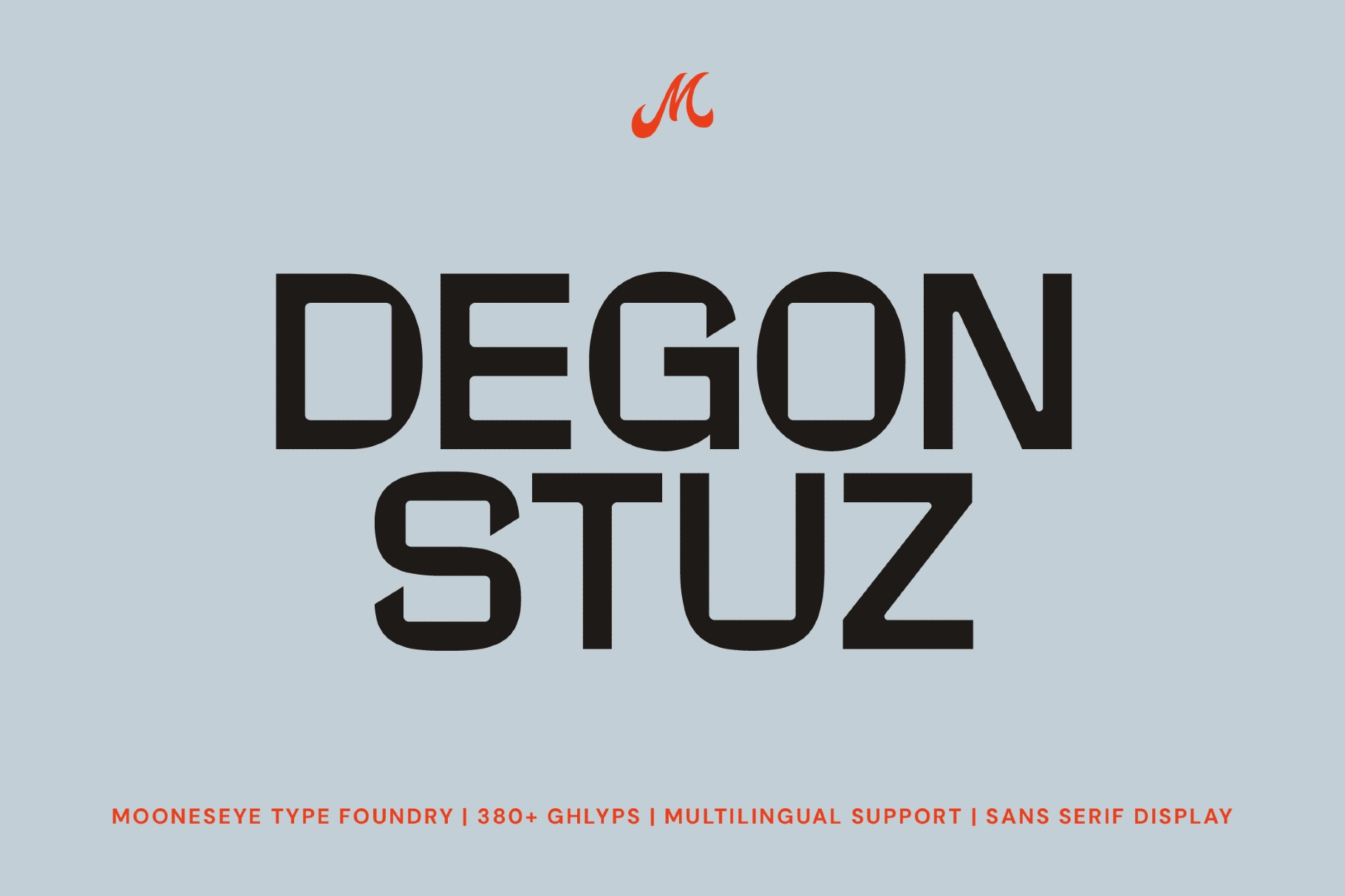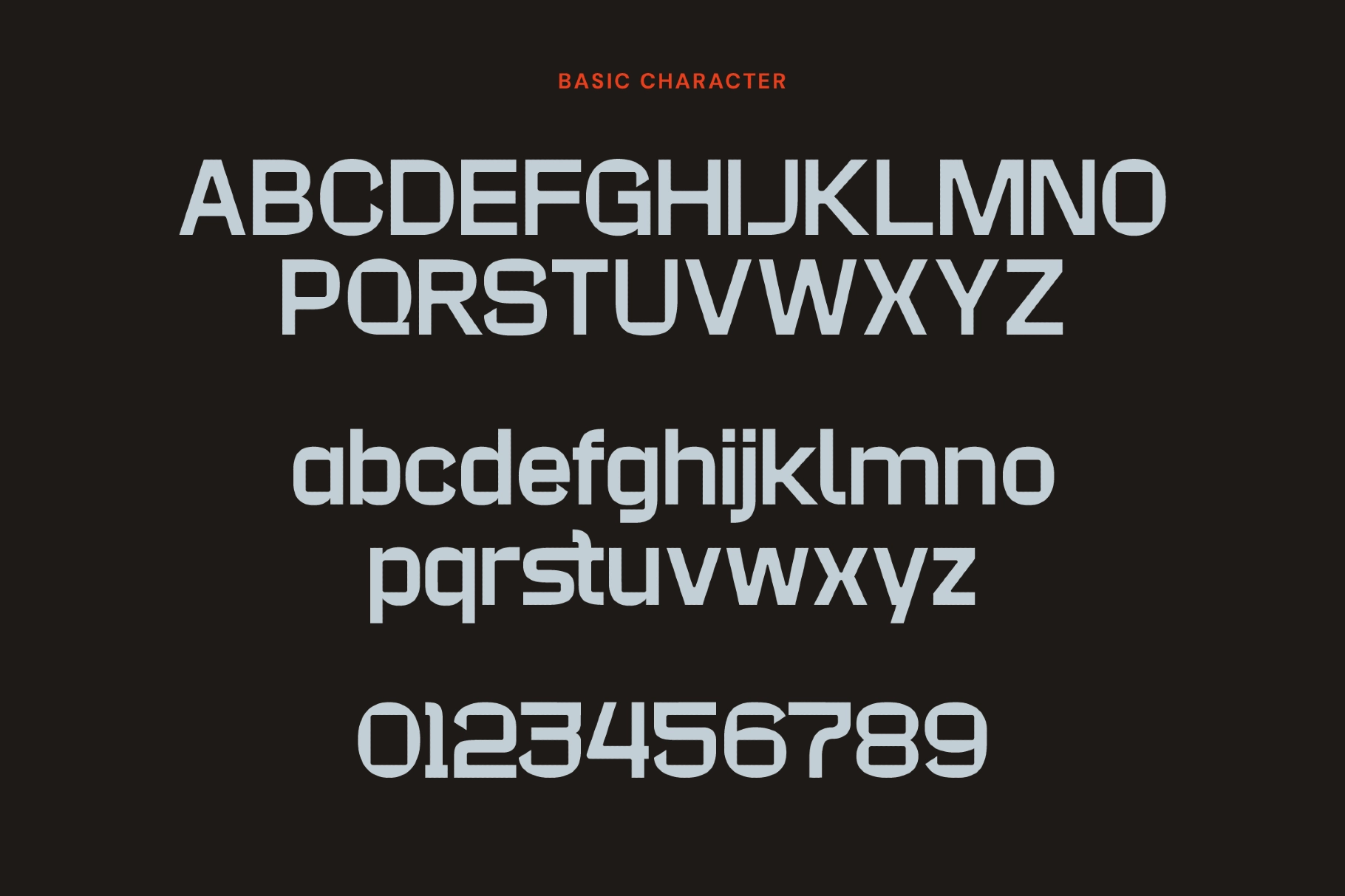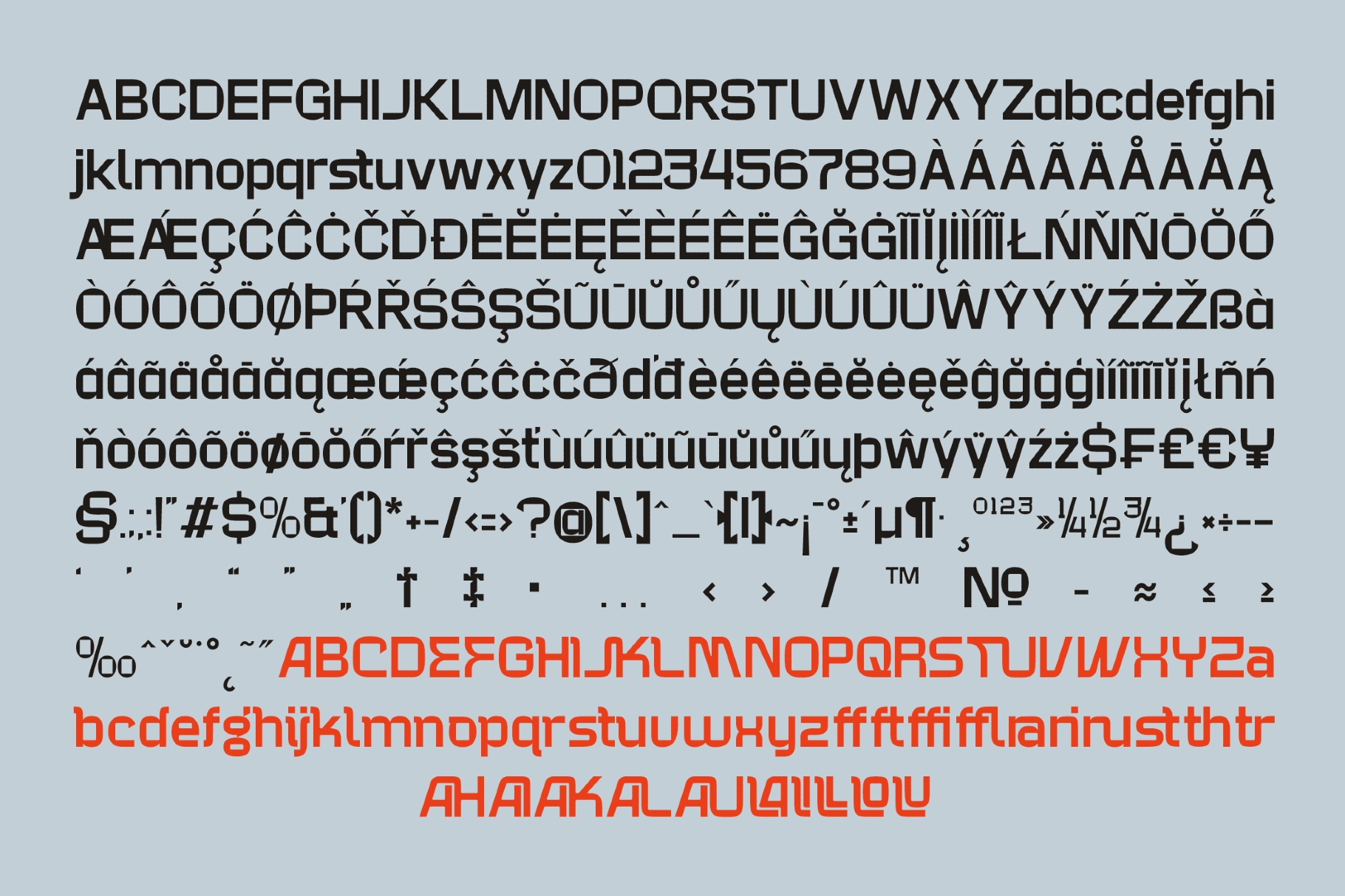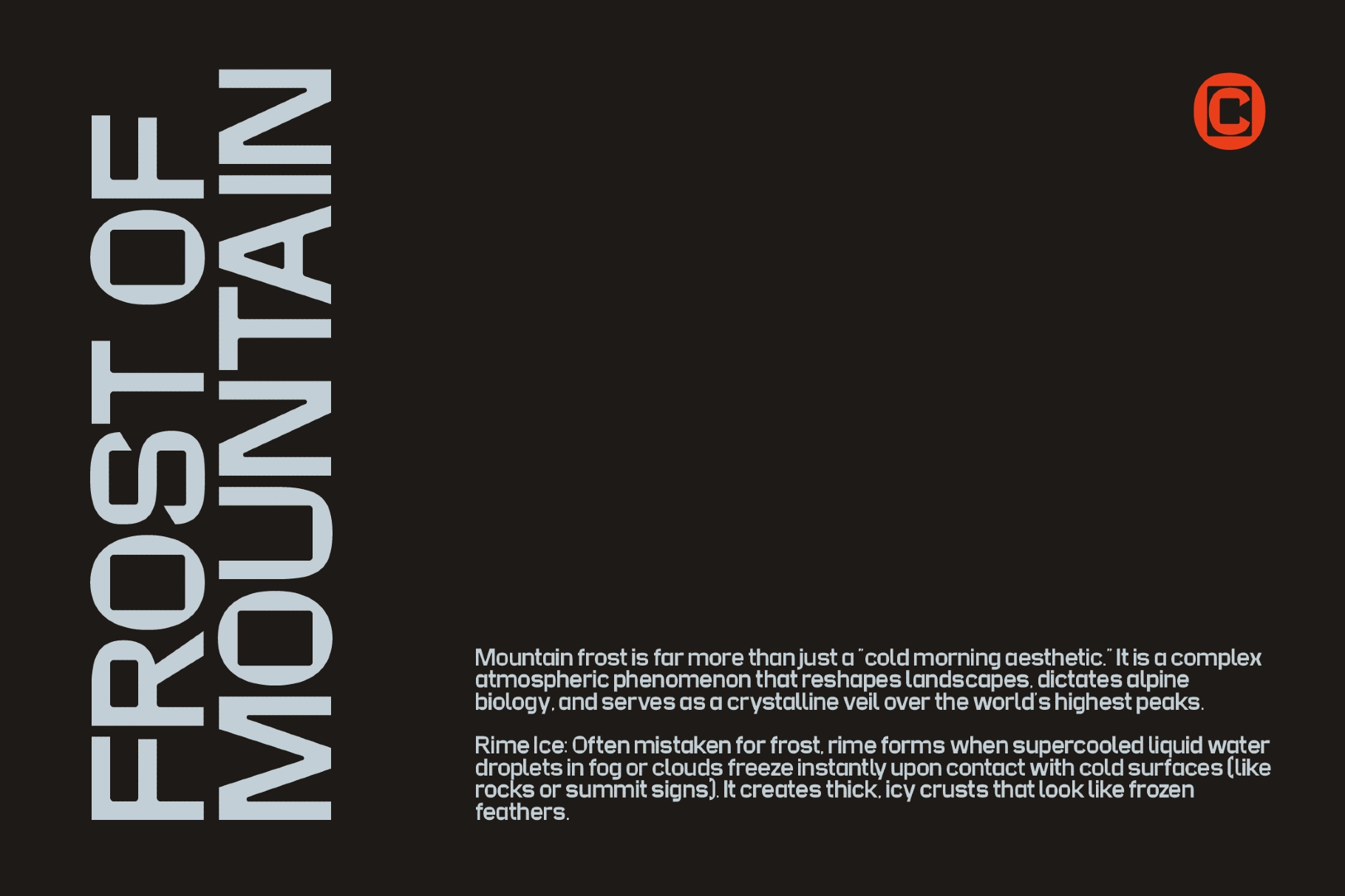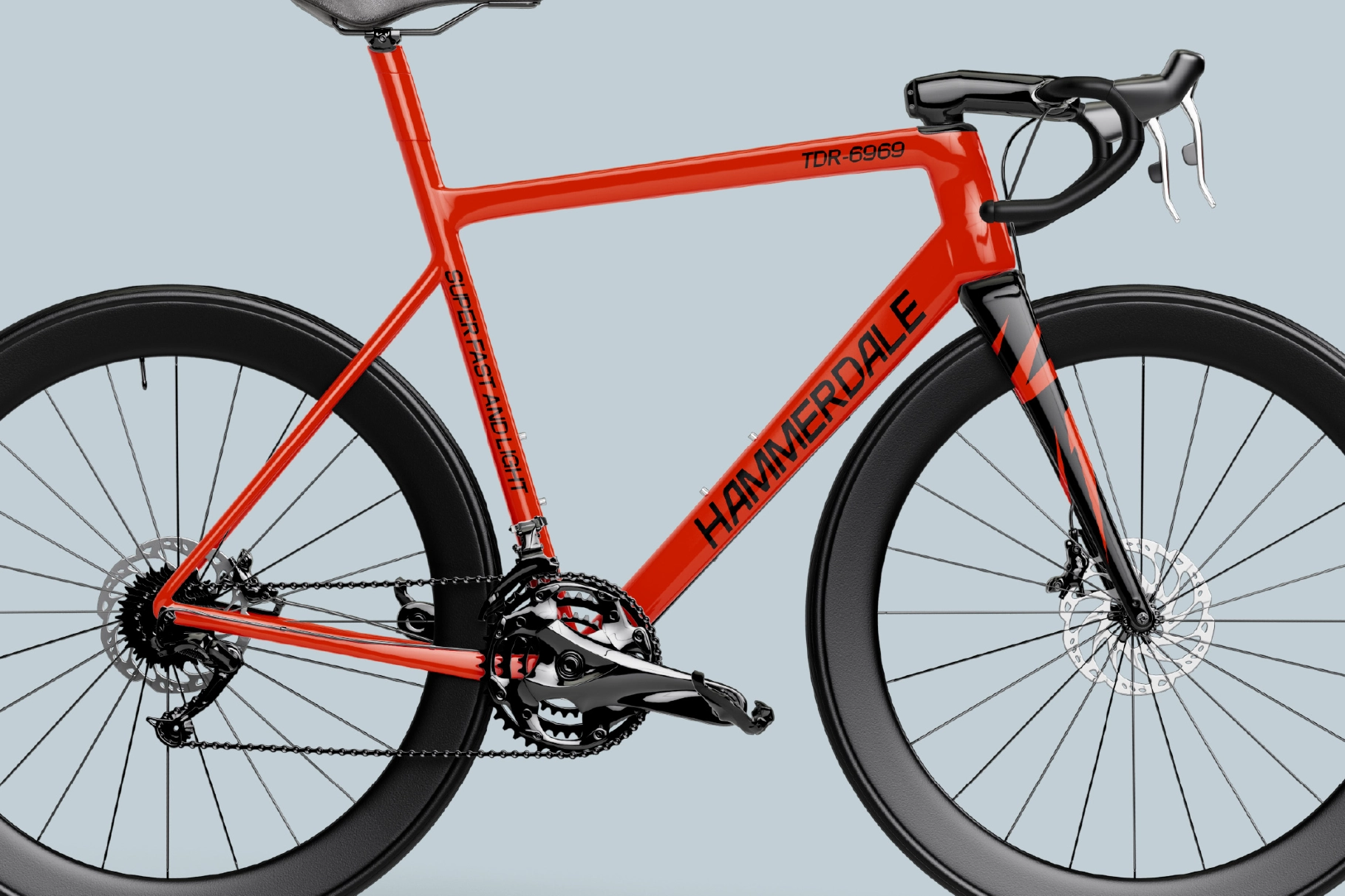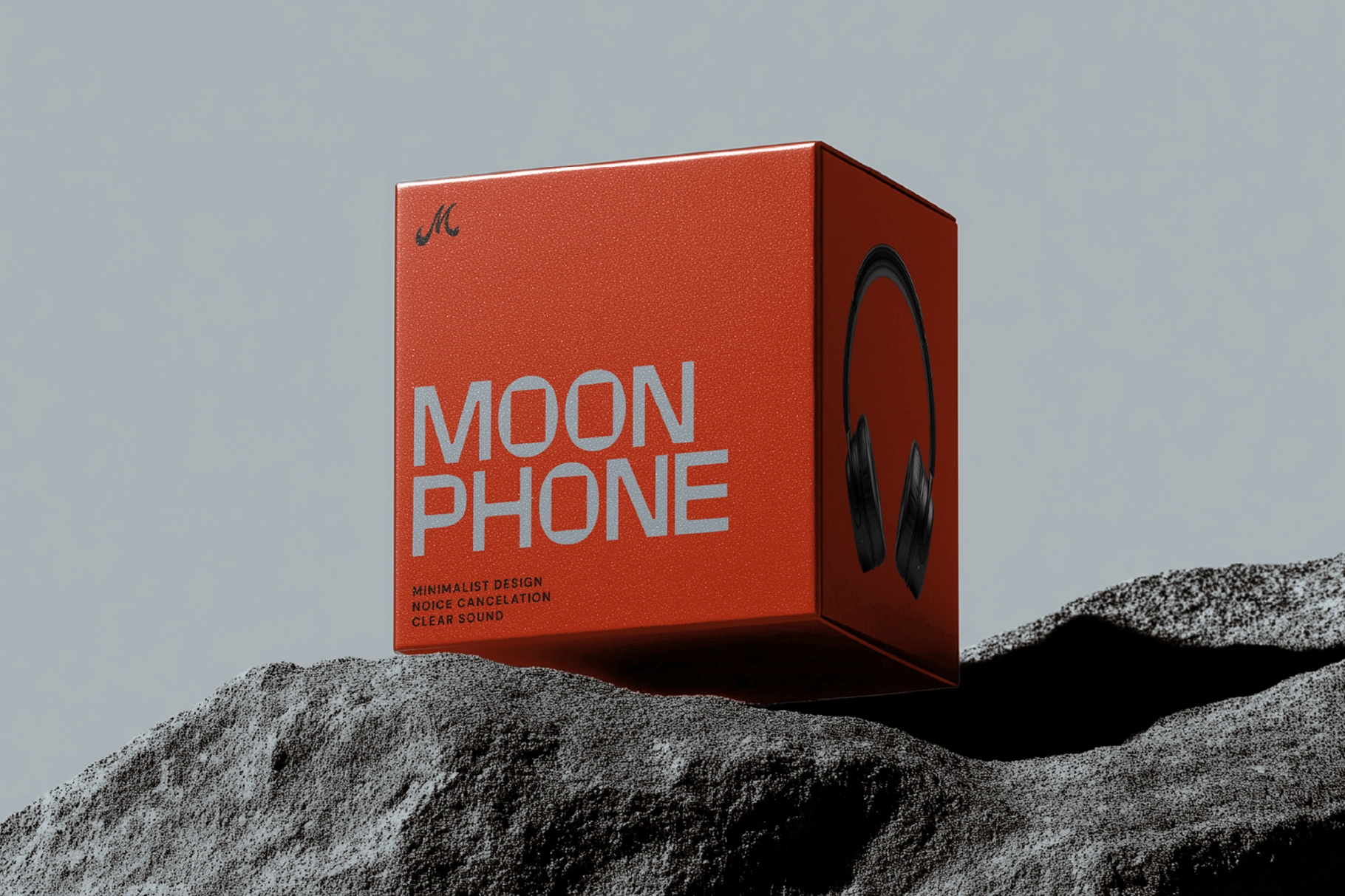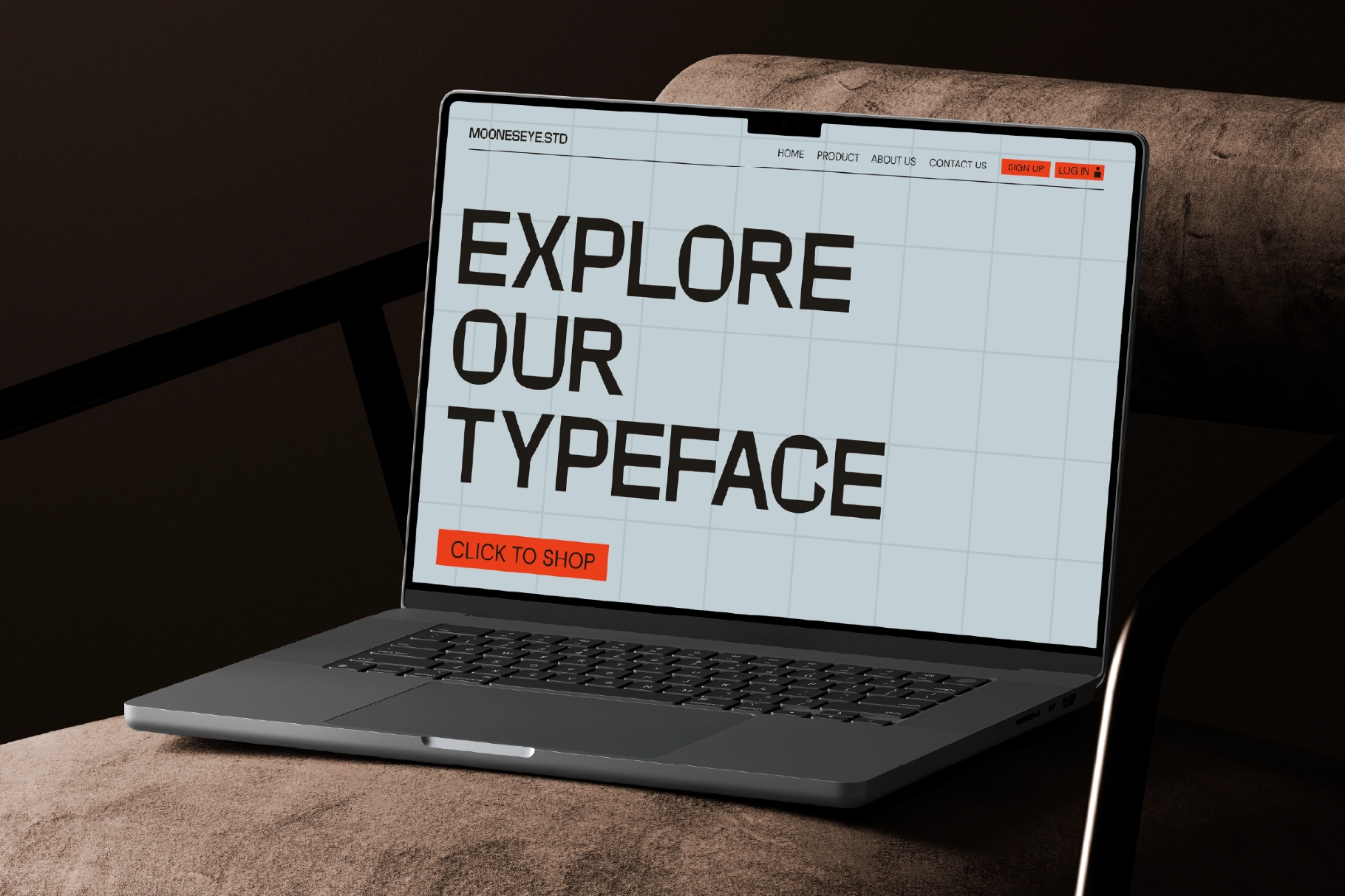
Degon Stuz - Bold Geometric Sans Serif Font
Degon Stuz is a bold geometric sans serif font built on a strict industrial grid, with squared-off terminals, near-zero stroke contrast, and a high x-height that locks letters into a dense, wall-like mass at display sizes. The construction sits closer to 1970s Swiss industrial grotesks than to the softer geometric sans tradition — every curve is clipped, every corner is resolved with a flat cut.
The ligature set is where the font earns its keep in logo work: custom connections between letter pairs compress the spacing into single-unit mark-like clusters, so a brand name typed in Degon Stuz can read as a hand-crafted wordmark without additional manipulation. Use it for tech startup branding, esports team identities, sports jersey typography, gaming UI headlines, event poster titles, streetwear logotypes, product packaging headers, app marketing banners, and editorial feature titles.